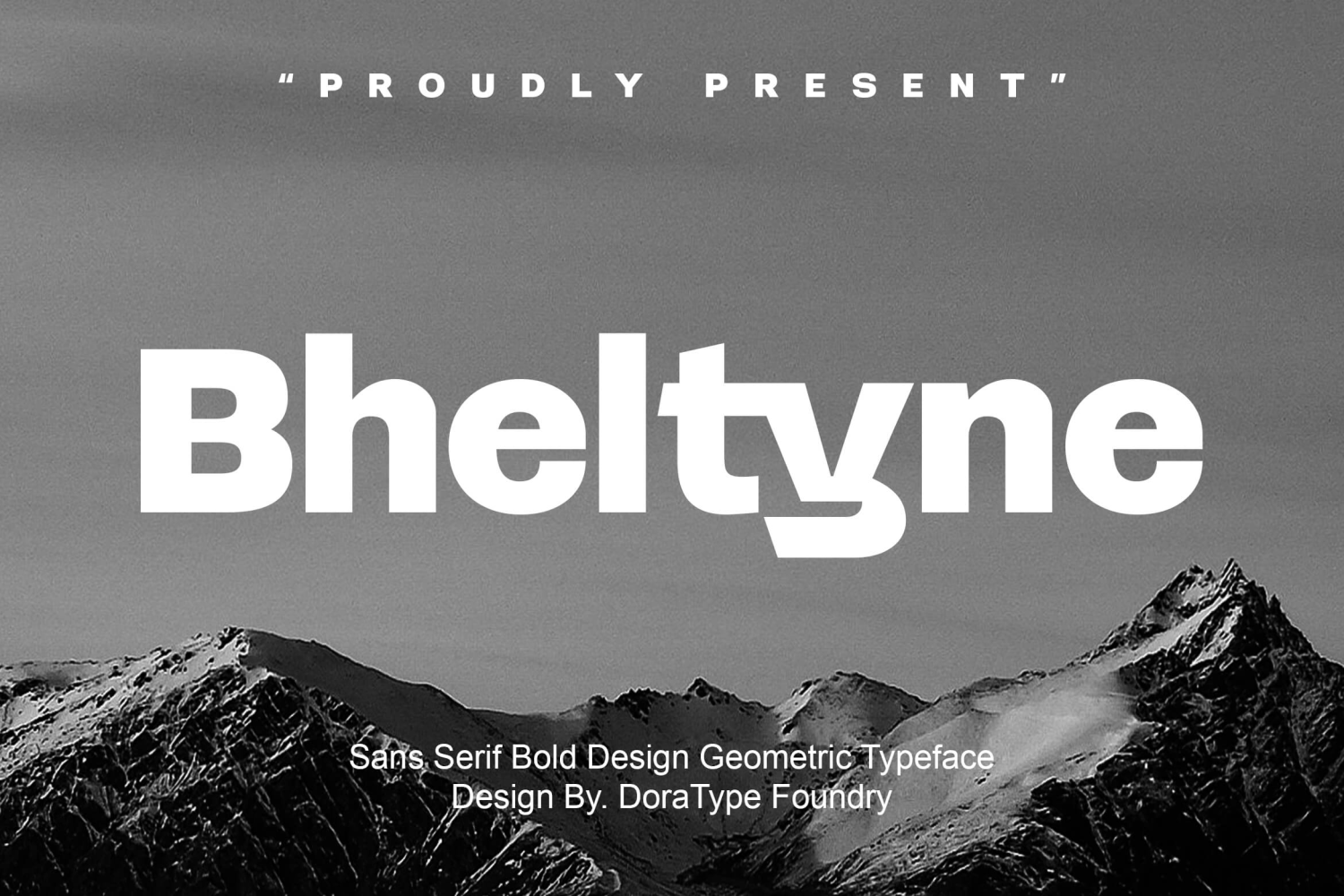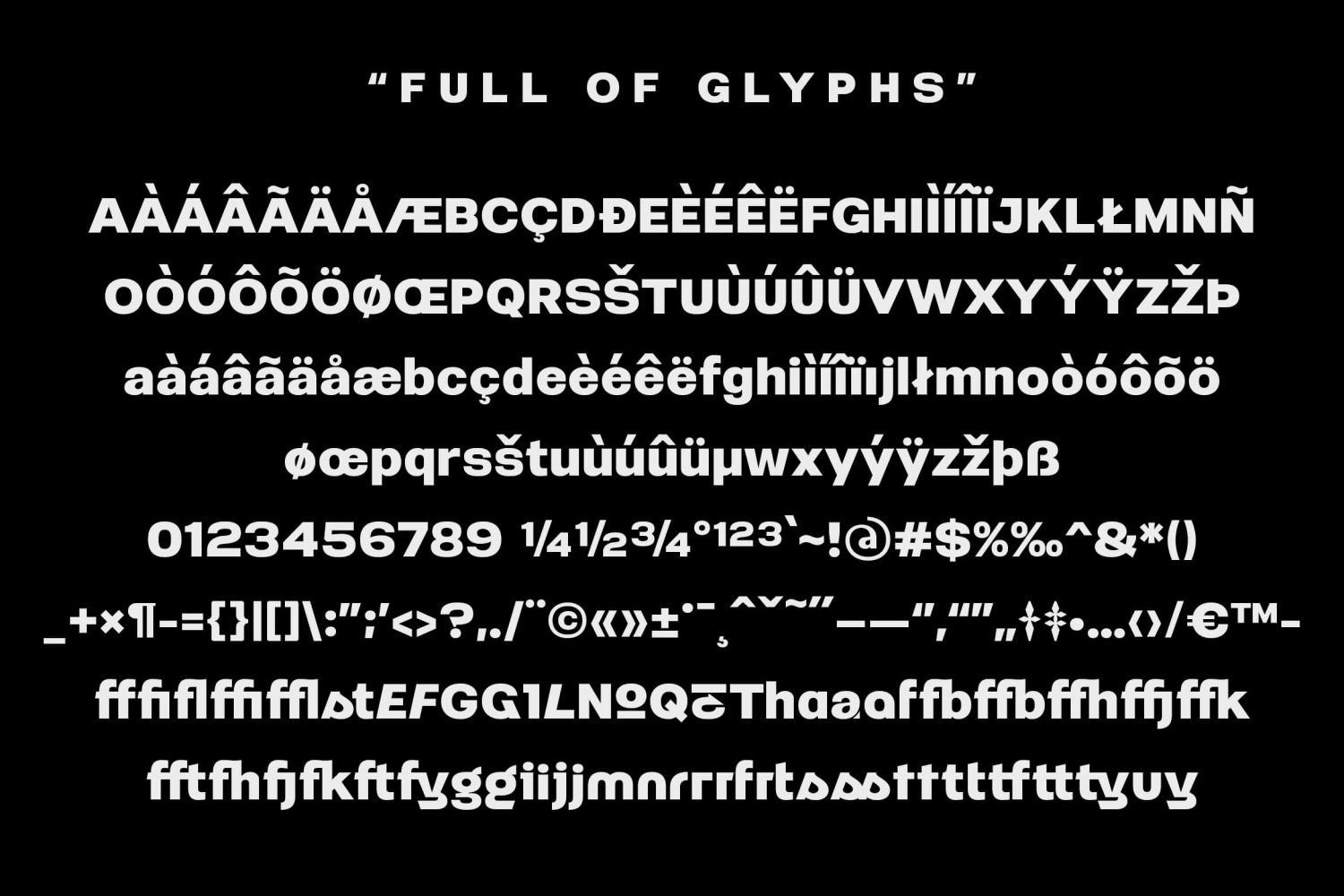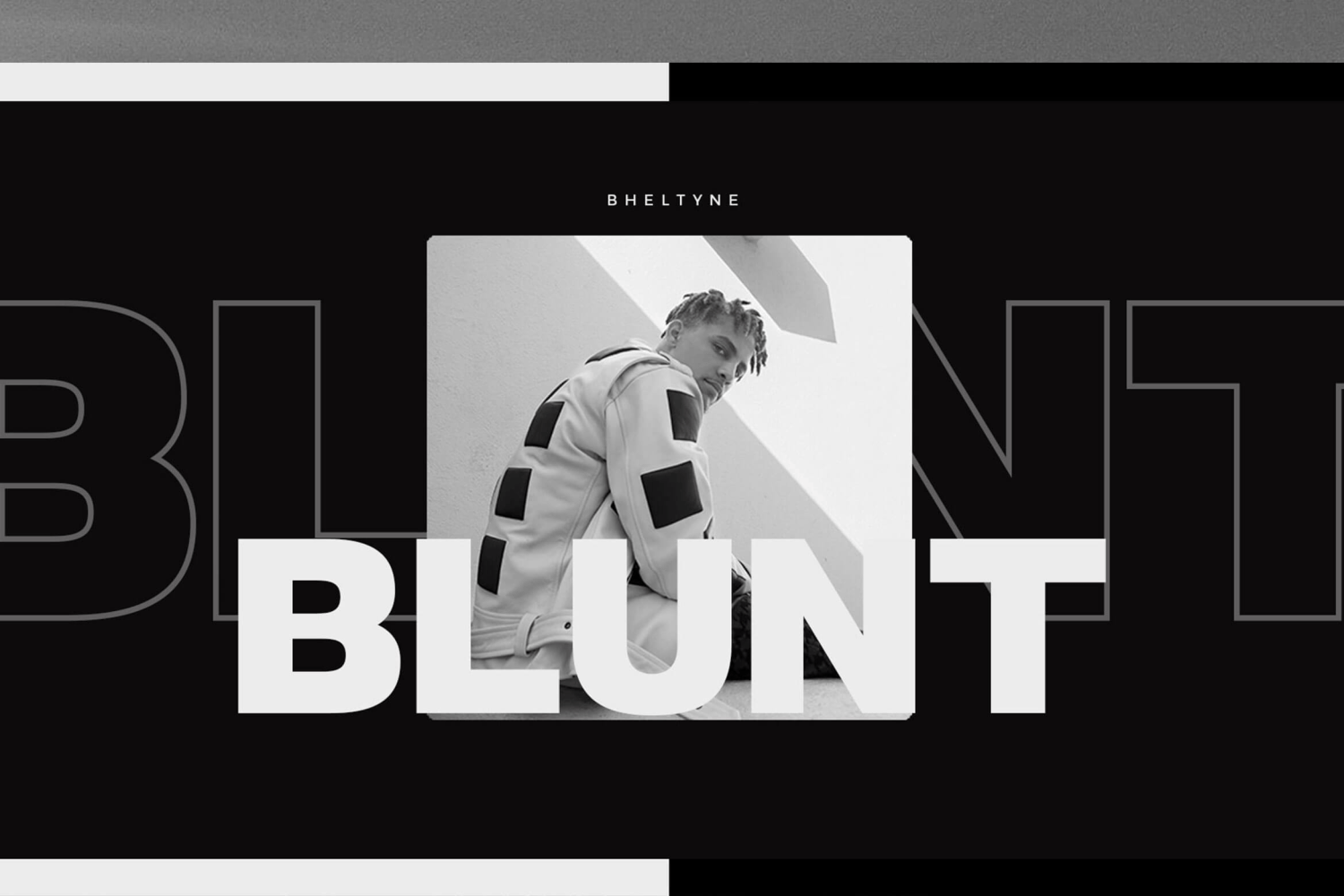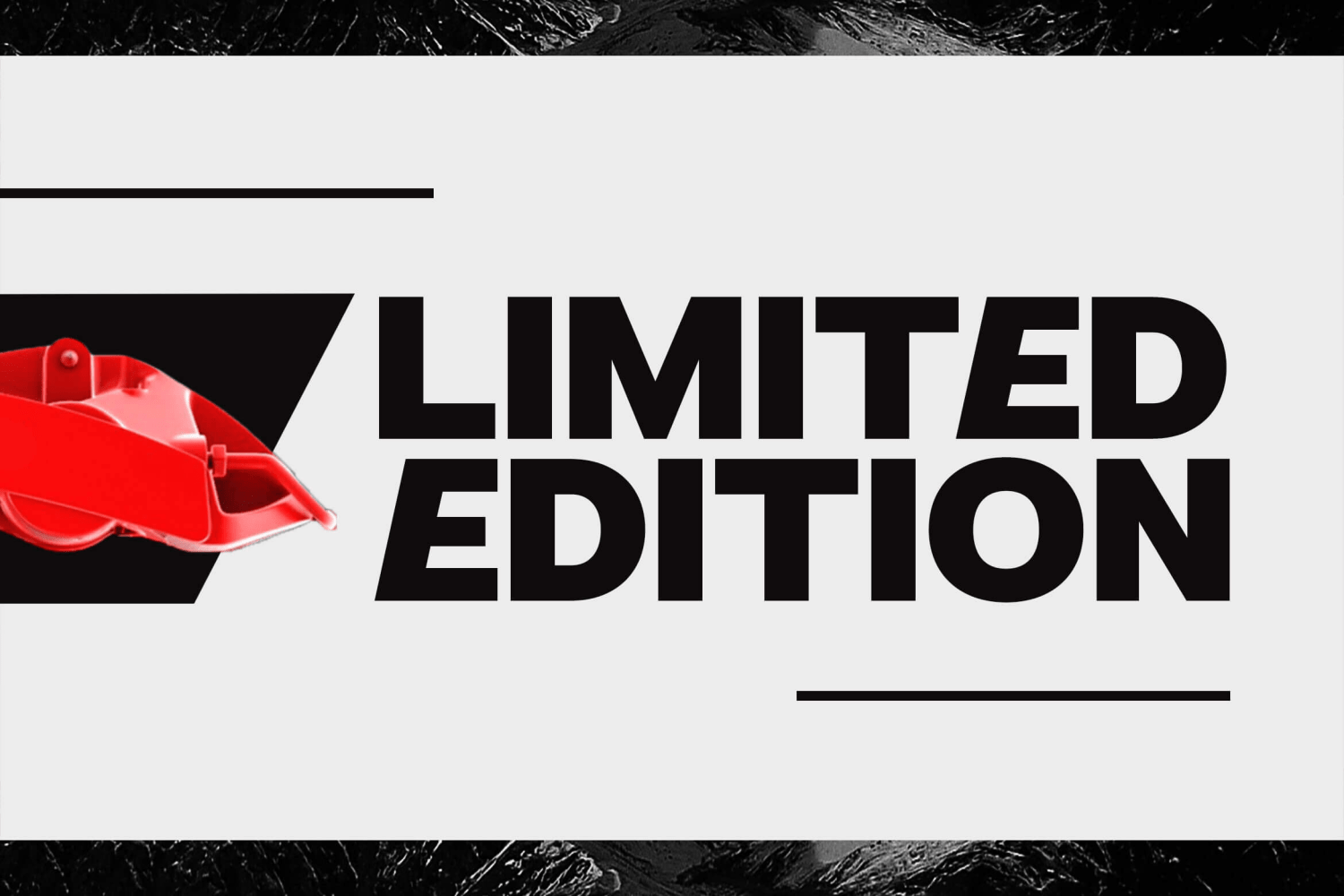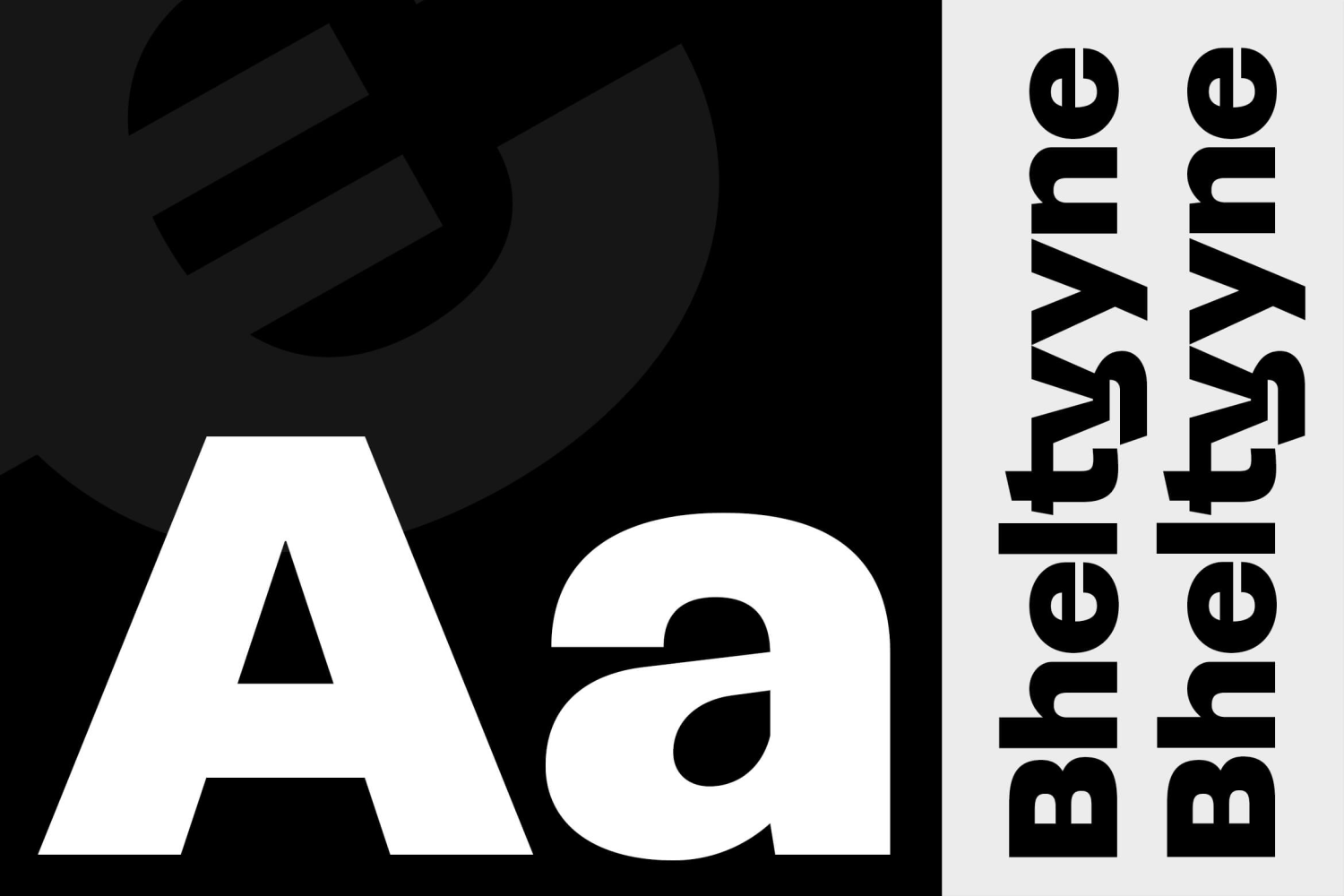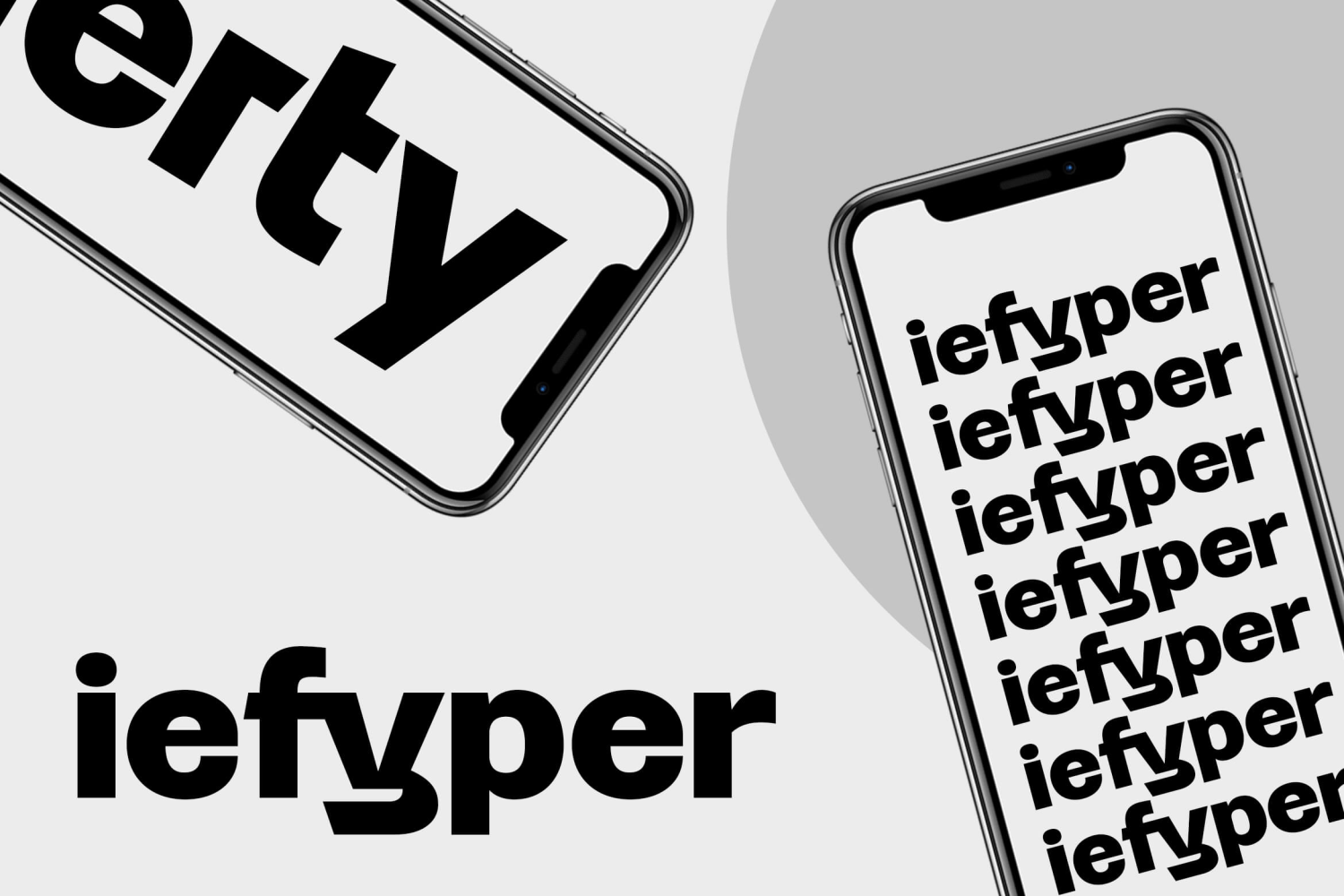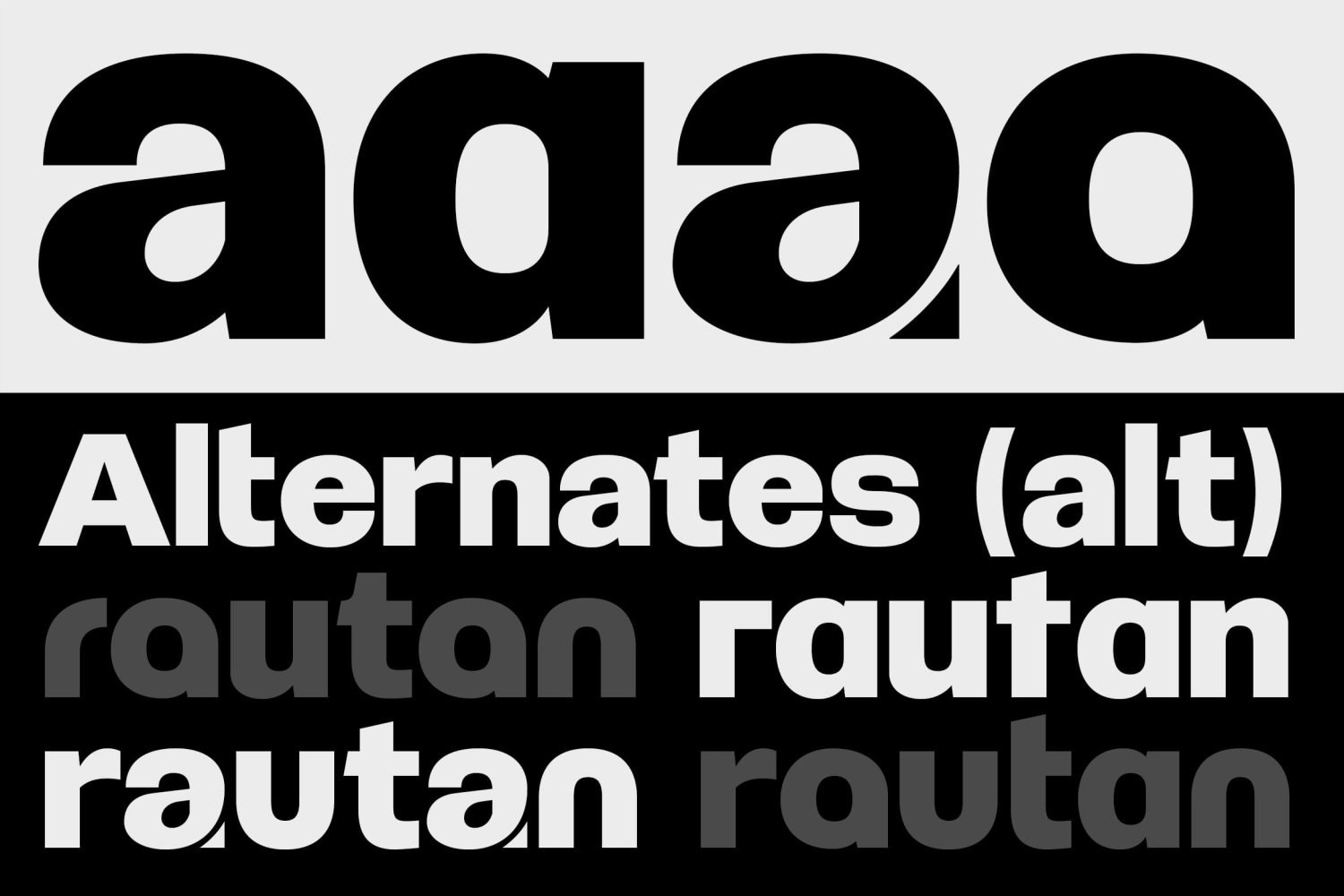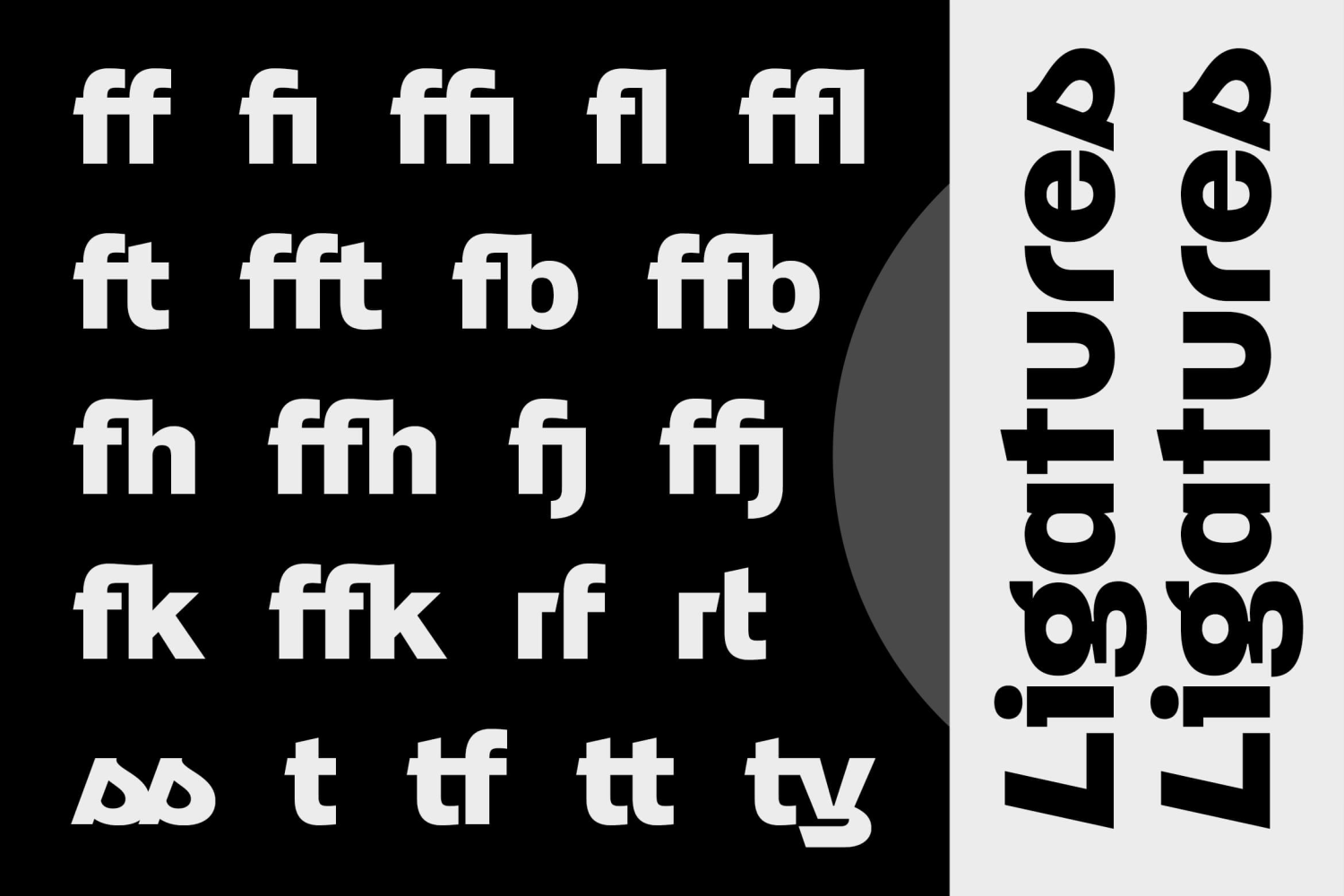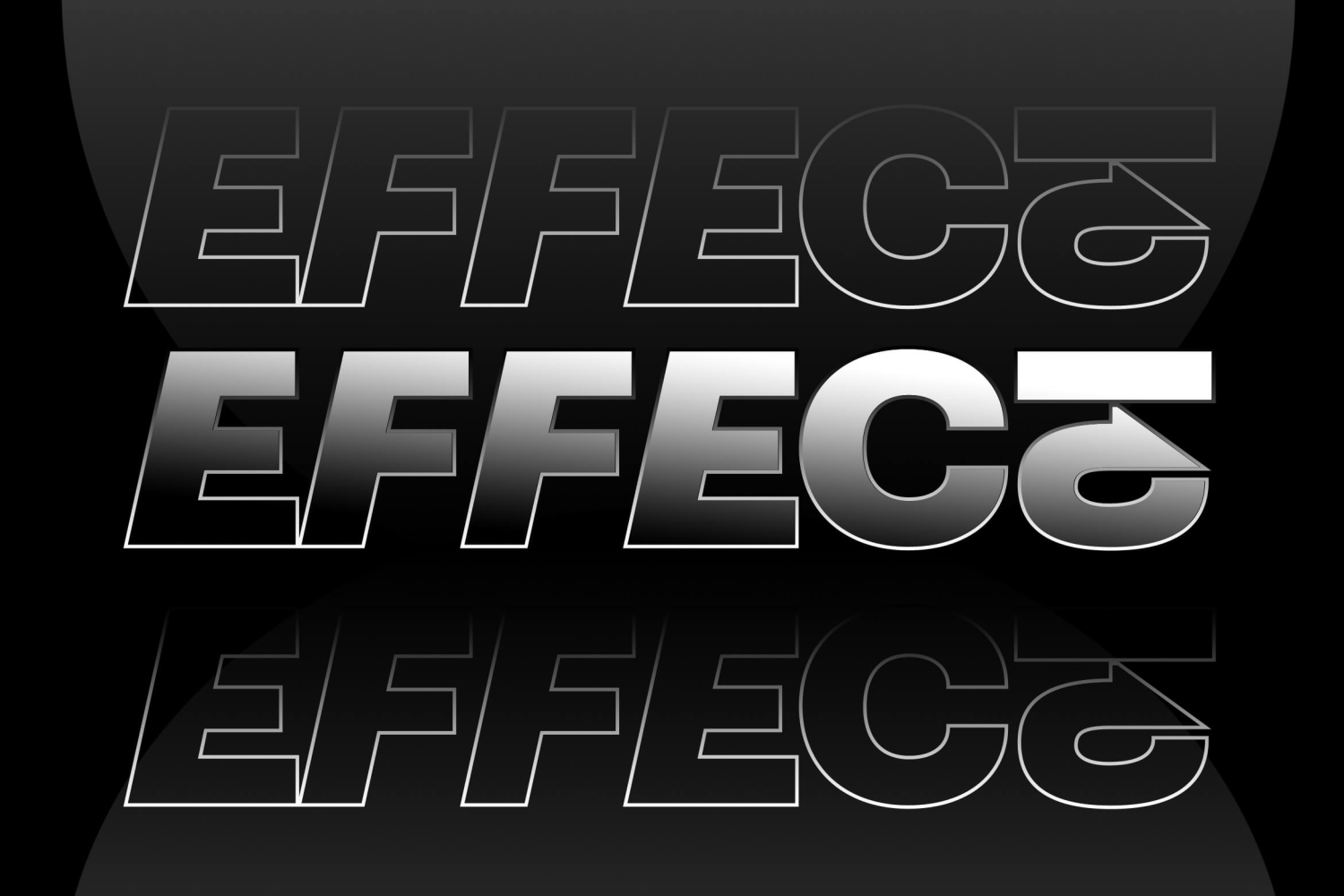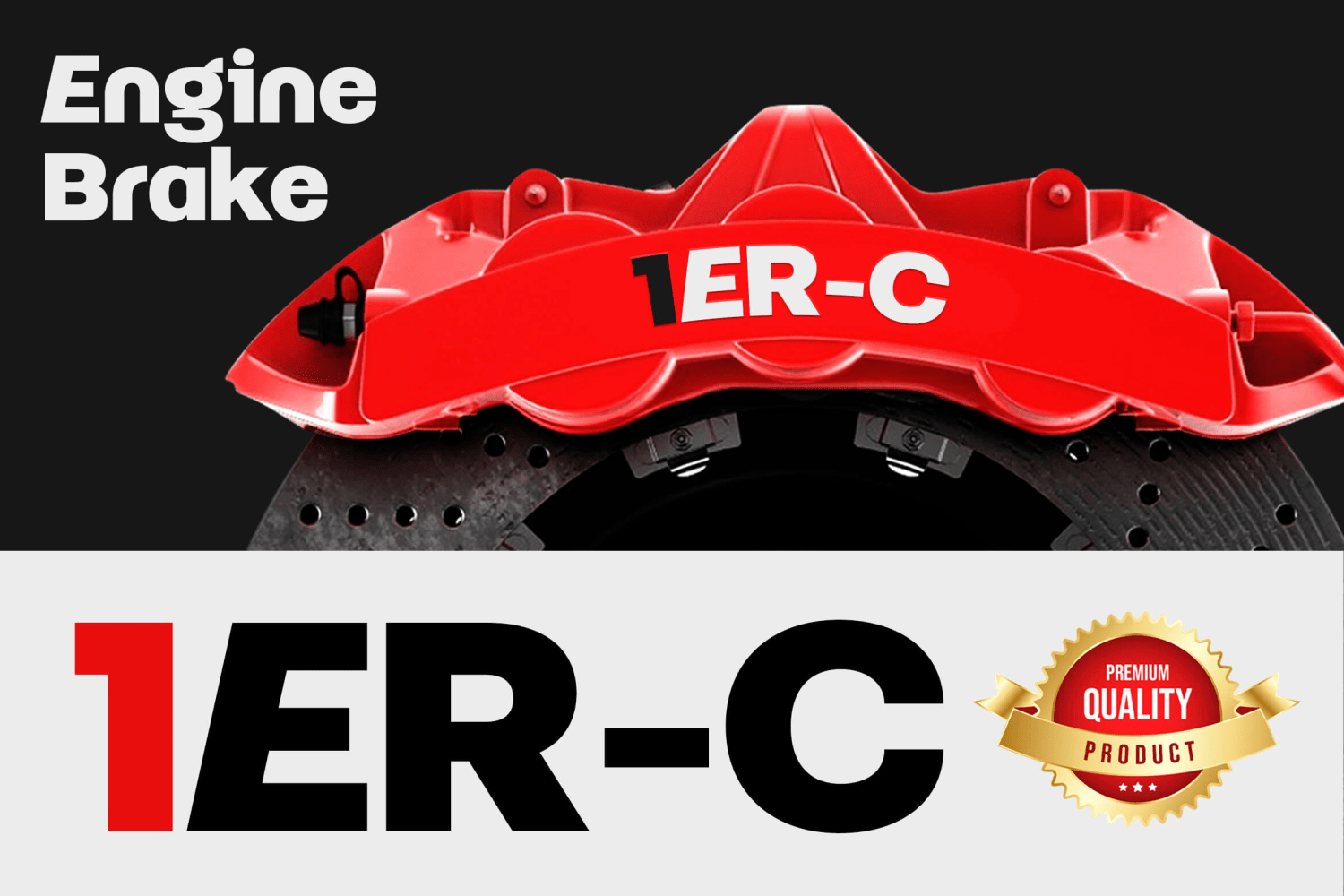
Bheltyne
Font Family by Dora Typefoundry
Designed to create an impactful and stylish visual impression, especially in logos, posters, strong feminine branding websites & impactful quotes.
Features
- All Caps Font with different uppercase and lowercase
- Number & Symbol
- Supported Languages
- Alternates and Ligatures